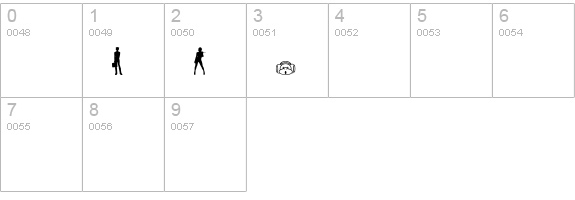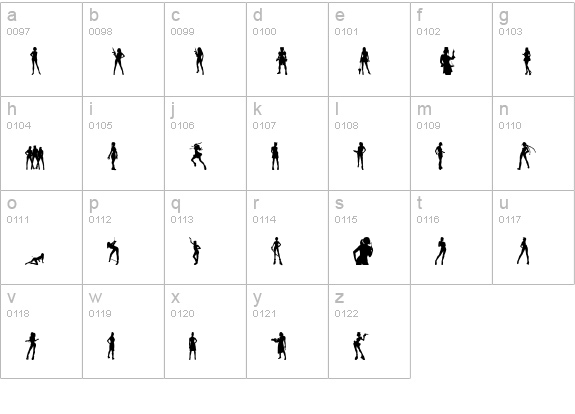
n0rpicons2 Font Details
n0rpicons2 font is a versatile and stylish typeface that is sure to make your designs stand out. This unique font features clean lines and modern elements that will add a touch of sophistication to any project. With its sleek design and attention-grabbing details, n0rpicons2 font is perfect for branding, logos, headlines, and more. The best part? n0rpicons2 font is completely free to download at FontsMarket.com. Whether you're a graphic designer, a web developer, or just someone looking to spice up their projects, this font is a must-have in your collection. Don't miss out on the opportunity to enhance your work with this stunning and eye-catching typeface. Download n0rpicons2 font today and take your designs to the next level!